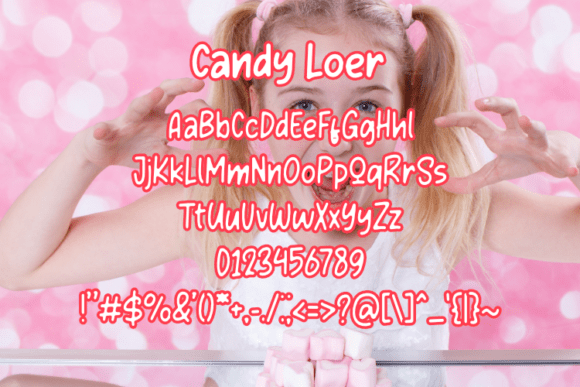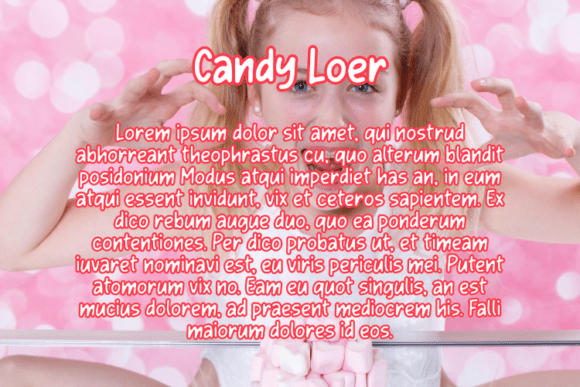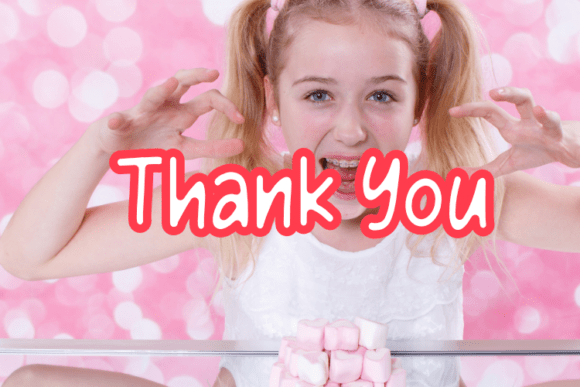
Unleash Your Creativity with Candy Loer Font
Welcome to the vibrant world of typography, where creativity knows no bounds! If you’re a designer, crafter, or simply a DIY enthusiast, you’re in for a treat. Introducing the Candy Loer font, a versatile and stylish typeface that’s about to become your new best friend. In this article, we’ll dive into the wonderful world of Candy Loer, exploring its features, benefits, and endless possibilities.
A Font that’s Sweet as Candy
Candy Loer font is a delightful addition to any design project. Its unique charm and character make it perfect for a wide range of applications, from clothing and t-shirt designs to stickers, posters, and more. This font is carefully crafted to add a touch of sweetness and whimsy to your creations, making them stand out from the crowd.
What Makes Candy Loer Font So Special?
So, what sets Candy Loer apart from other fonts? Here are just a few reasons why this font is a cut above the rest:
- Versatility: Candy Loer font is incredibly versatile, making it suitable for a vast array of design projects. Whether you’re creating a logo, brochure, or social media graphics, this font adapts seamlessly to any style or theme.
- Flawless Design: Each letterform is meticulously designed to perfection, guaranteeing a flawless display of text that’s both visually appealing and highly legible.
Endless Design Possibilities with Candy Loer
The possibilities are endless with Candy Loer font! Here are some design ideas to get you started:
- T-Shirt Designs: Create eye-catching t-shirt designs that pop with Candy Loer’s unique style.
- Clothing and Accessories: Add a touch of personality to your clothing and accessory designs, from tote bags to phone cases.
- Stickers and Decals: Design fun and quirky stickers and decals that showcase your brand’s personality.
- Posters and Flyers: Create stunning posters and flyers that grab attention and leave a lasting impression.
Why Choose Candy Loer Font?
With so many fonts available, why choose Candy Loer? Here are just a few compelling reasons:
- Style and Usability: Candy Loer font strikes the perfect balance between style and usability, making it an excellent choice for designers and crafters.
- Unique Appeal: This font’s distinctive charm and character will set your designs apart from the competition, ensuring your brand stands out in a crowded market.
In conclusion, Candy Loer font is a versatile, stylish, and highly usable typeface that’s perfect for designers, crafters, and DIY enthusiasts. With its unique charm, convenient file format, and endless design possibilities, this font is sure to become a staple in your creative toolkit. So why wait? Immerse yourself in the creative universe with Candy Loer font and unlock a world of limitless design possibilities!